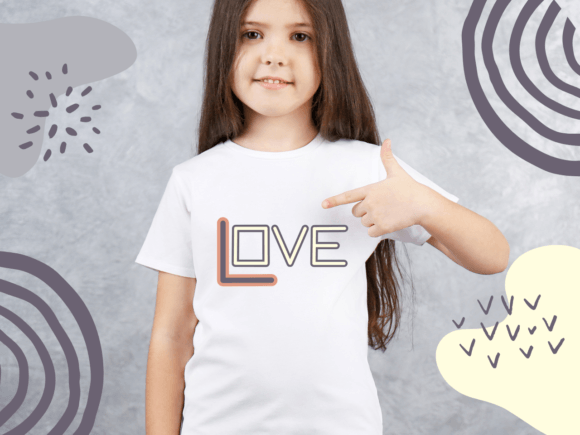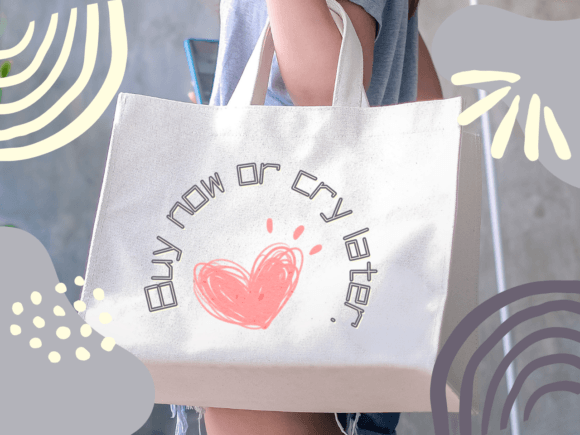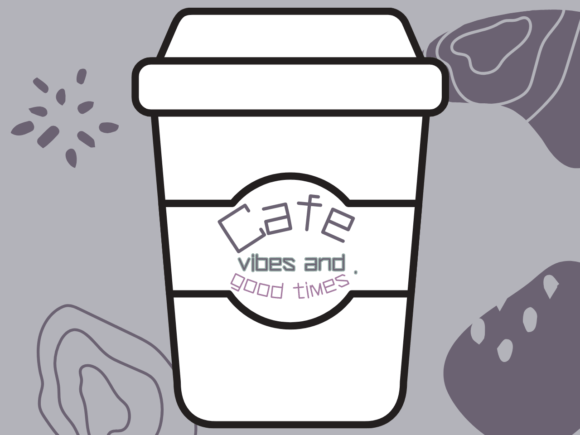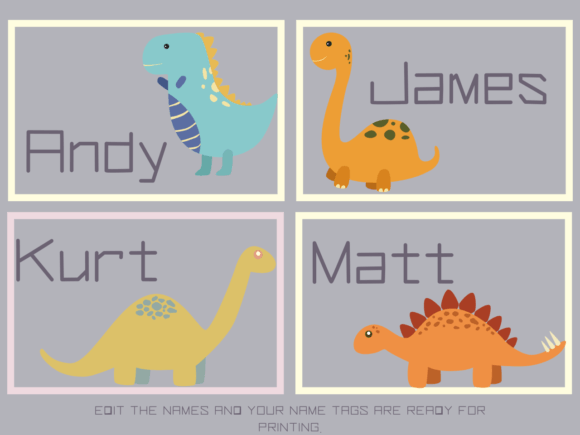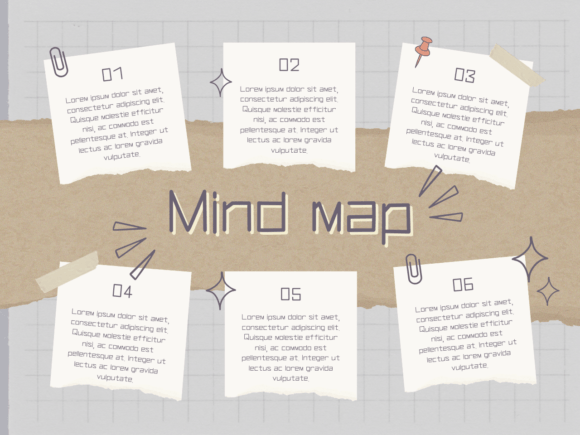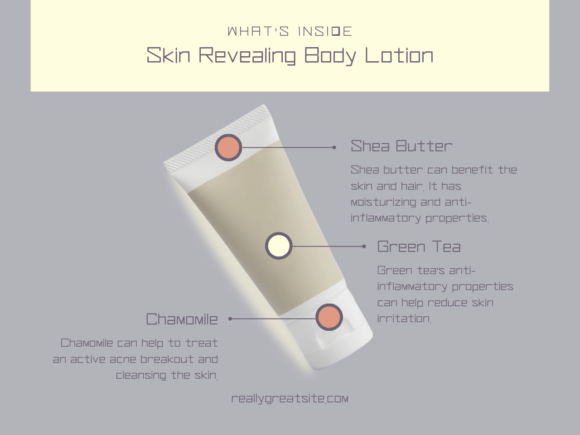
Discover the Perfect Canvas for Your Creativity
Have you ever stared at a blank page, searching for the perfect font to bring your design to life? The pressure to create something unique and captivating can be overwhelming, but what if you had a reliable ally to help you achieve your vision?
Enter the Alexander Font, a modern sans serif font designed to breathe life into your favorite designs. Whether you’re crafting book covers, magazines, social media posts, or invitations, this versatile font is sure to impress. With its minimalist and clean vibe, Alexander Font is the perfect canvas for your creativity, allowing you to focus on what truly matters – your message and your audience.
As a valuable asset for designers, Alexander Font offers a fresh perspective and a timeless aesthetic that’s sure to elevate your work. So why settle for ordinary when you can have extraordinary with the Alexander Font?
Alexander Font Key Features
- Font Family: A modern sans-serif font with clean lines and geometric shapes, suitable for body text and headings.
- Unique Characteristics: Features a distinctive x-height and a subtle italic style, making it suitable for use in various design contexts.
Review of Alexander Font
I recently had the chance to work with the Alexander Font, and I must say it’s a solid choice for any designer looking for a clean, elegant sans-serif typeface. ✨ The font’s lines are smooth, and the letterforms are well-balanced, making it perfect for body text and headings alike. ✨
One of the things that stood out to me was the font’s versatility. It comes in a wide range of weights, from Light to Black, making it easy to find the perfect fit for your design. ✨ Additionally, the font is highly legible, even at small sizes, which is a must-have for any designer.
- ⚠️ The font may lack some of the uniqueness and personality that some designers look for in a typeface. It’s a safe choice, but it may not stand out from the crowd.
- ⚠️ The font’s x-height is slightly smaller than average, which may affect readability in certain contexts.
Overall, I’d say the Alexander Font is a solid choice for any designer looking for a clean, elegant sans-serif typeface. While it may not be the most exciting or unique font out there, it’s a dependable choice that’s sure to please even the most discerning eye.
Tips for Getting the Most Out of Alexander Font
To get the most out of the Alexander font, use it for:
- Body text in formal documents
- Designing vintage-inspired graphics
Remember to pair the Alexander font with other fonts that complement its classic and elegant style.
The Alexander font is commonly used for:
- Formal event graphics and signage
Alternatives to Alexander Font
Playfair Display is an elegant and luxurious serif font, perfect for high-end branding and luxury packaging. It’s ideal for headings and titles where you want to convey sophistication and refinement. Unlike Alexander Font, Playfair Display has a more ornate and intricate design, making it a great choice for special occasions.
Montserrat is a modern sans-serif font that’s highly legible and versatile. It’s great for body text, headings, and even logos. Compared to Alexander Font, Montserrat is more minimalist and clean, making it a great choice for digital design, signage, and urban environments.
Merriweather is a classic serif font that’s perfect for body text and headings. It’s highly legible and has a timeless quality to it. Unlike Alexander Font, Merriweather is more understated and traditional, making it a great choice for corporate branding, publishing, and academic environments.
Didot is a luxurious and elegant serif font, perfect for high-end branding and luxury packaging. It’s ideal for headings and titles where you want to convey sophistication and refinement. Compared to Alexander Font, Didot is more refined and delicate, making it a great choice for special occasions and high-end design projects.
Creative Project Ideas Using Alexander Font
Project 1: Vintage Book Cover Design
Design a vintage book cover for a classic novel, incorporating the Alexander Font to add a touch of elegance and sophistication.